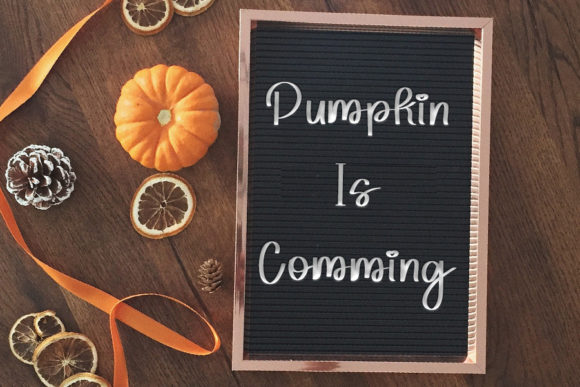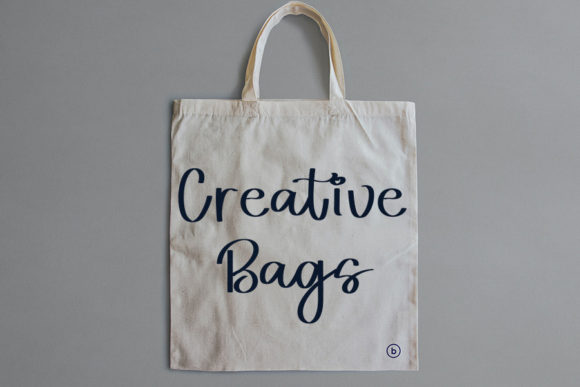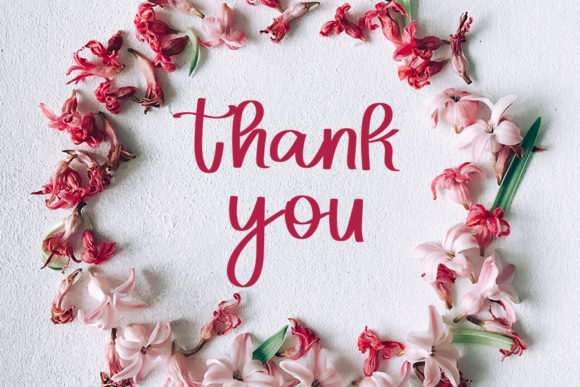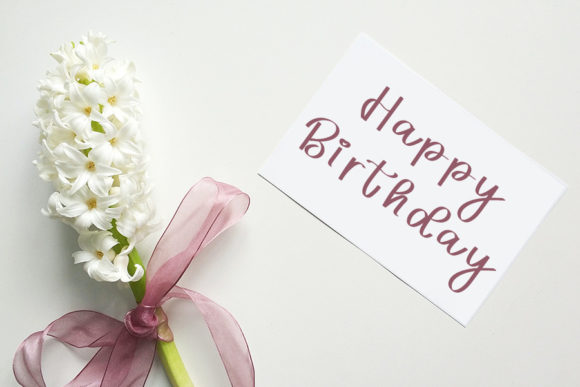
Winter is Coming Font
About Winter is Coming Font
Winter is Coming is a chic and dainty handwritten font, that features a relaxed and sweet style. It is defined by smooth curves and is perfect for fashion branding or editorial designs.